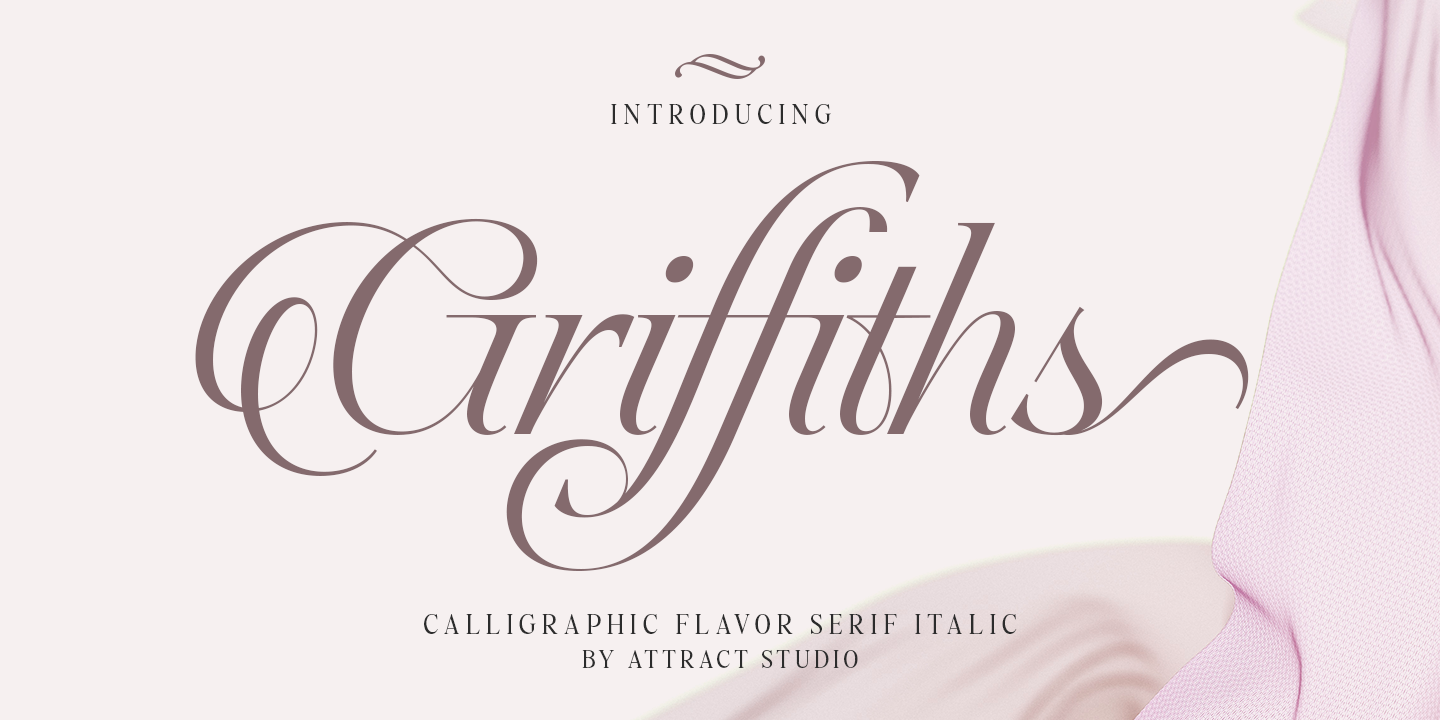
If you're searching for a unique and stylish typeface to enhance your design projects, Griffiths Font Free Download is the perfect choice. This elegant font offers a modern yet timeless aesthetic, making it ideal for branding, logos, invitations, and more. With its clean lines and versatile design, Griffiths Font ensures readability while adding a touch of sophistication.
Why Choose Griffiths Font?
Griffiths Font stands out for its balanced proportions and smooth curves, making it suitable for both digital and print media. Whether you're designing a website, creating social media graphics, or working on a print campaign, this font delivers exceptional performance. Its legibility ensures that your message remains clear, while its stylish flair adds a professional edge.